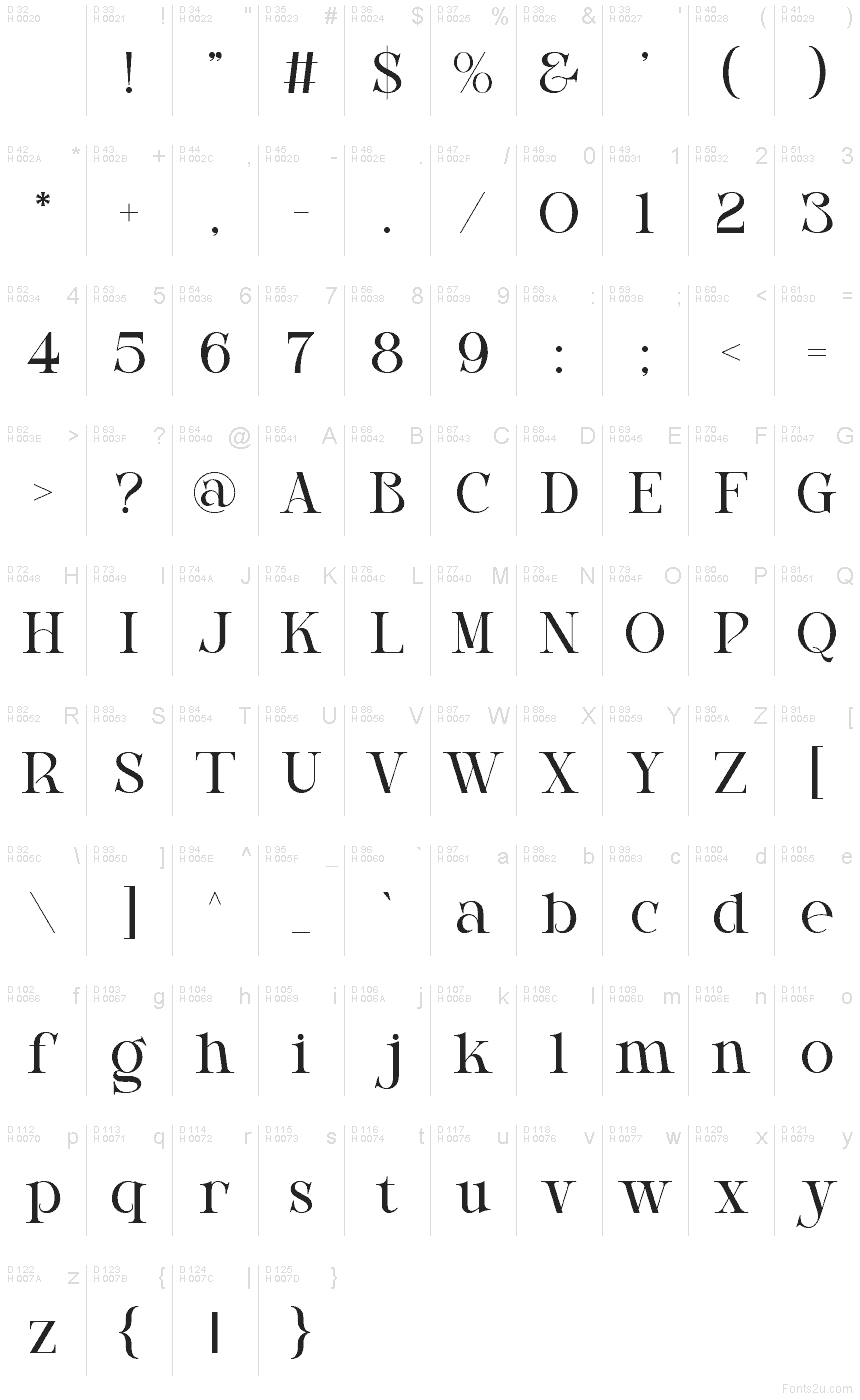
Krose Narovs Regular
Krose Narovs font by Ermedia Studio is a free high-contrast display serif. Its defining move is the carved, petal-like scoops that bite into the thick stems, setting up a chic rhythm between glossy blacks and crisp hairlines. The curves feel inky and deliberate, while the verticals stand tall and cool—giving you editorial drama without slipping into fussiness.
Using Krose Narovs, headlines snap into focus for fashion editorials, boutique logos, cosmetics branding, wine labels, posters, and book covers. This free font loves generous sizes and a touch of tracking to let those sculpted counters breathe. Pair it with a quiet grotesque sans for body copy to keep the spotlight on its elegant, scalloped contrast.